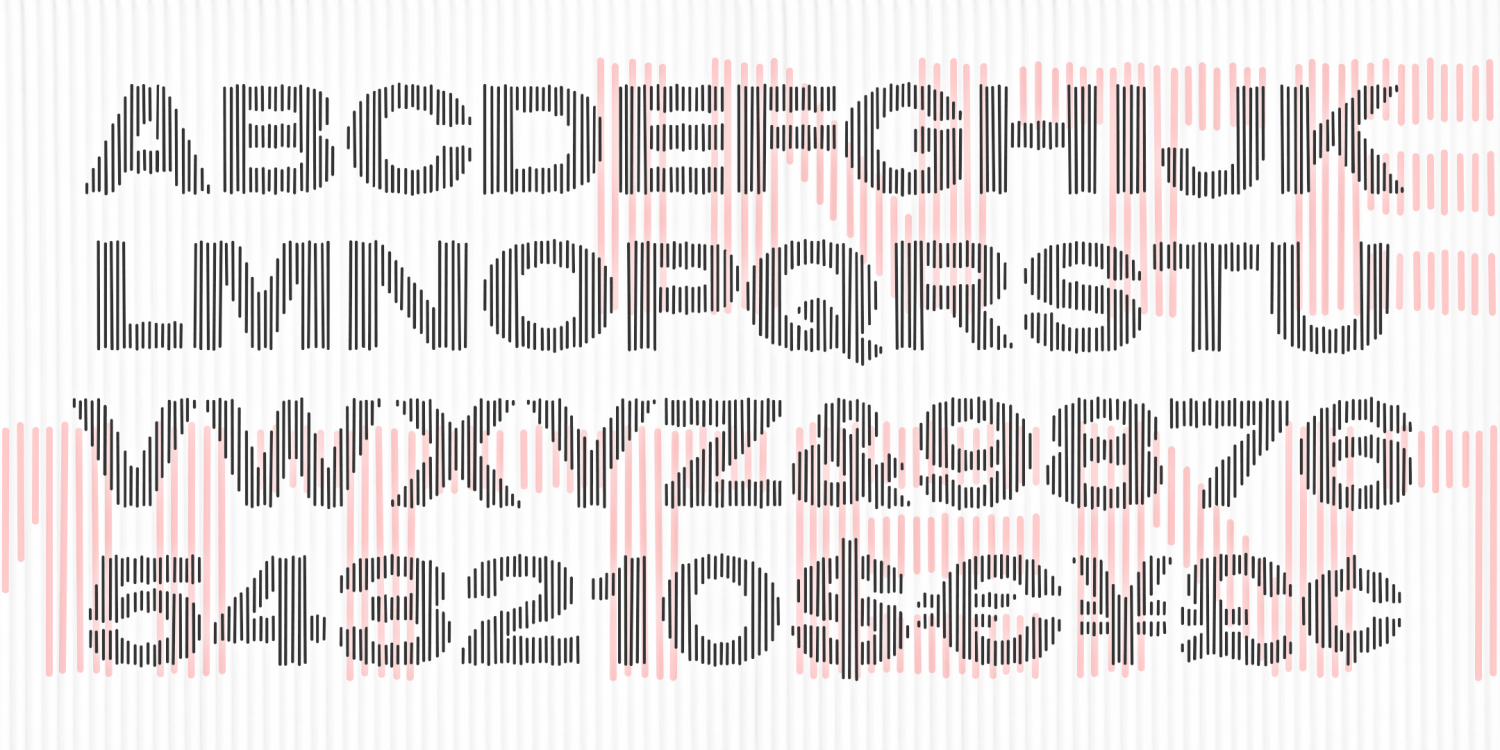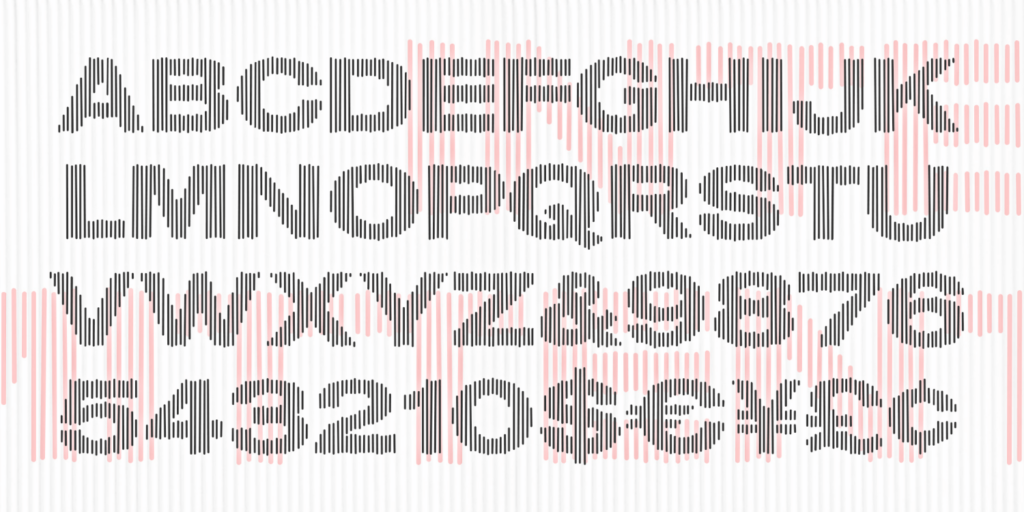
Intermittent
About Intermittent
Intermittent is composed of slightly irregular parallel lines that suggest a bold, wide sans serif. Intermittent is like a sketch of a font, bold and wide but with a gentle sparkle. Itwas inspired by some of the titles for the movie "West Side Story,"…